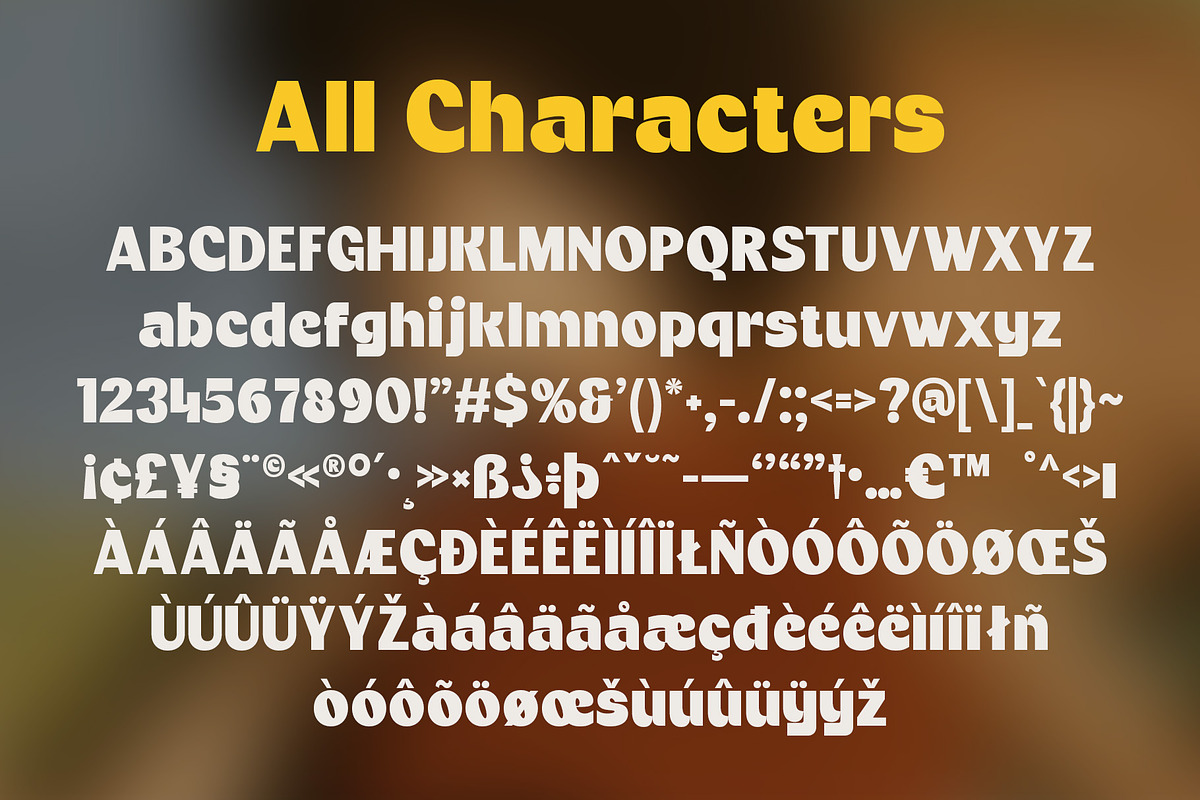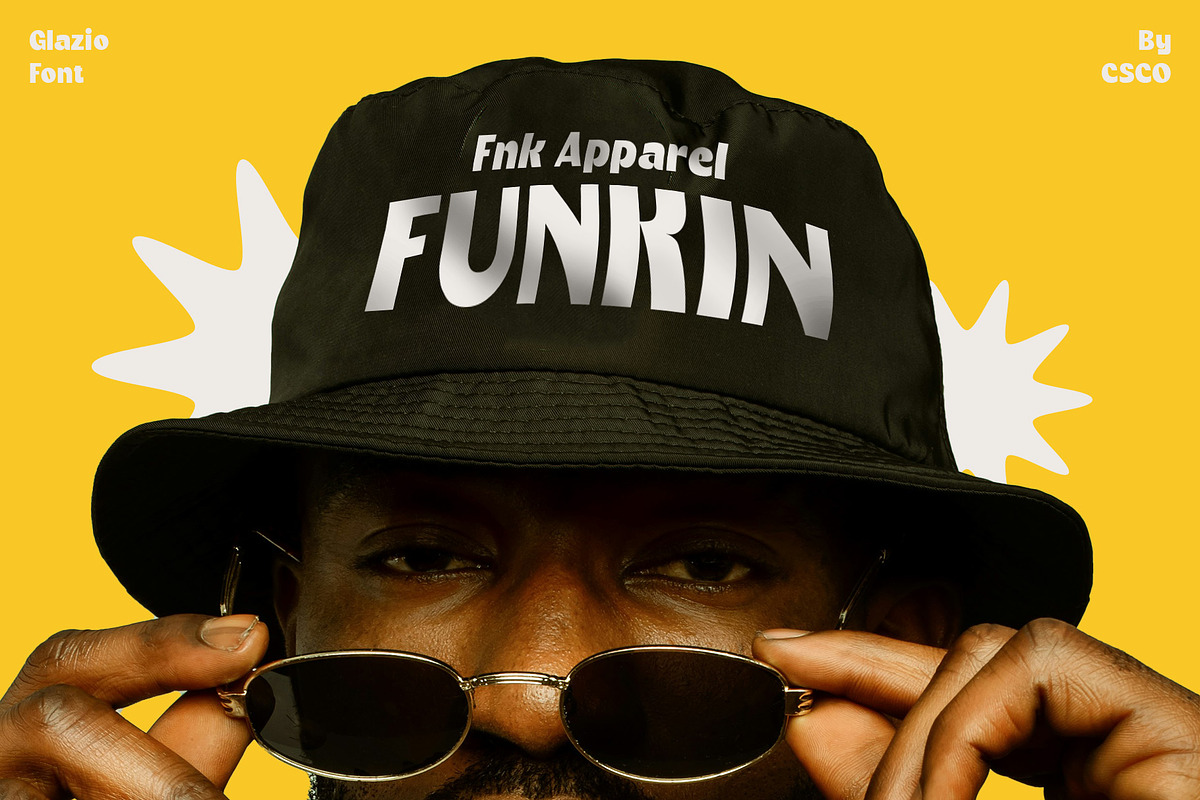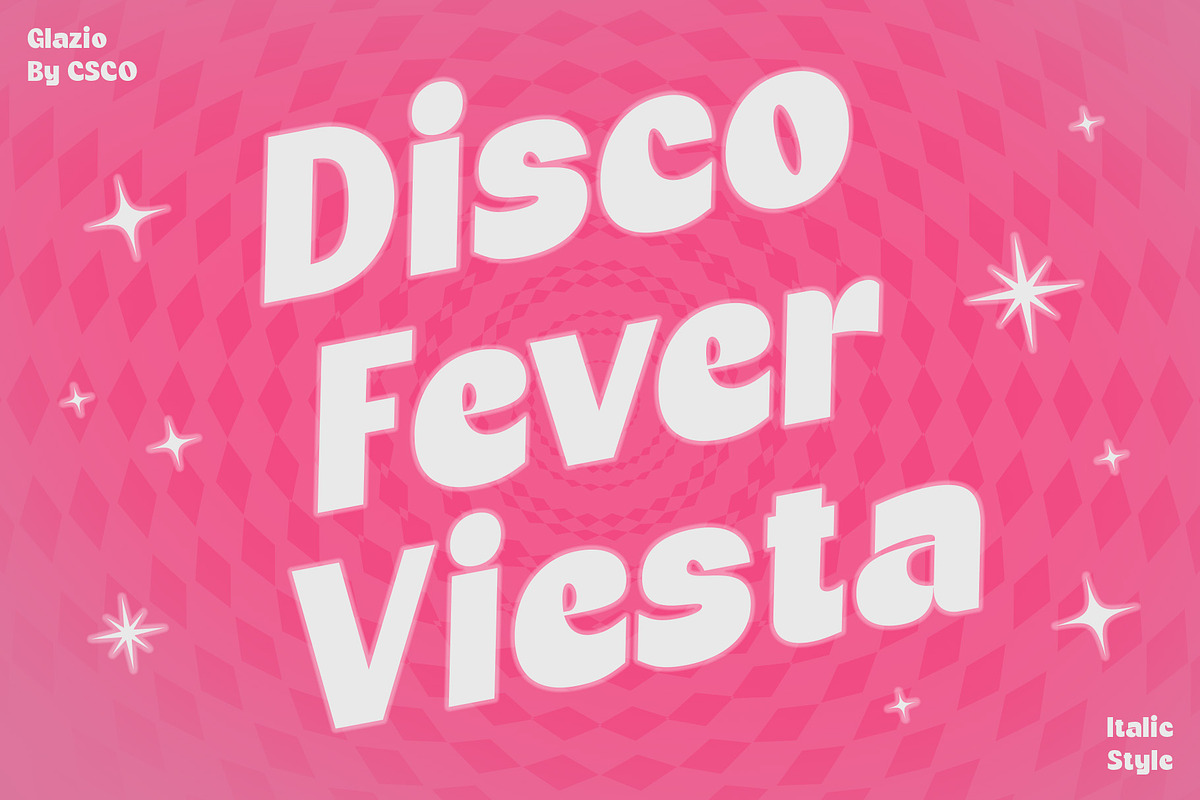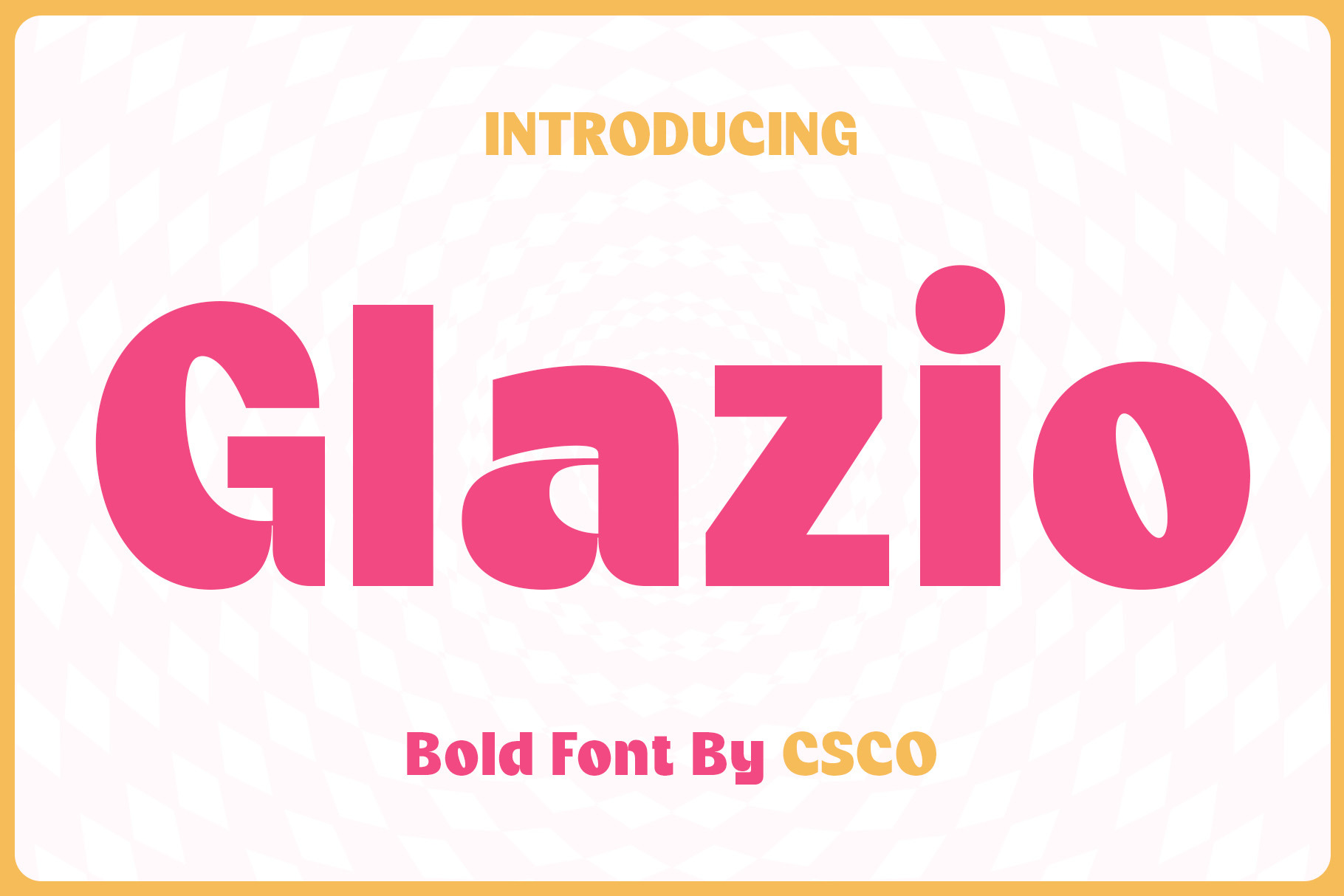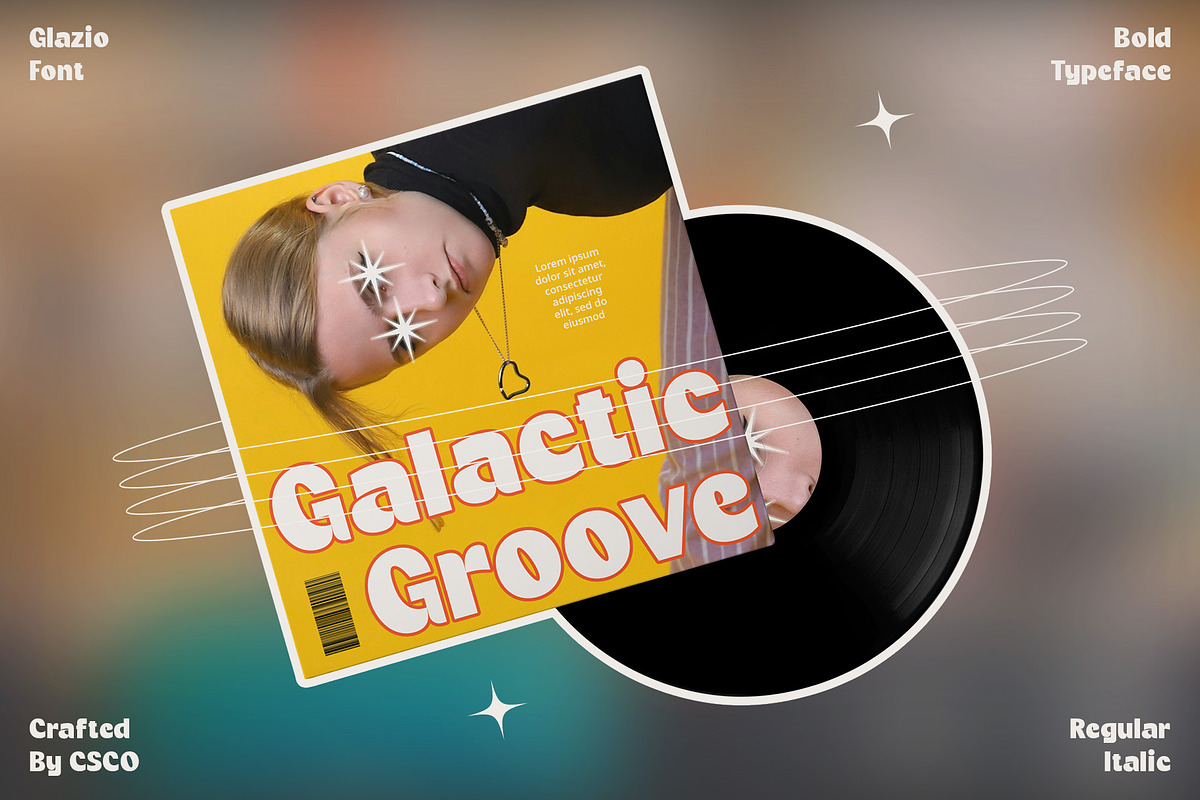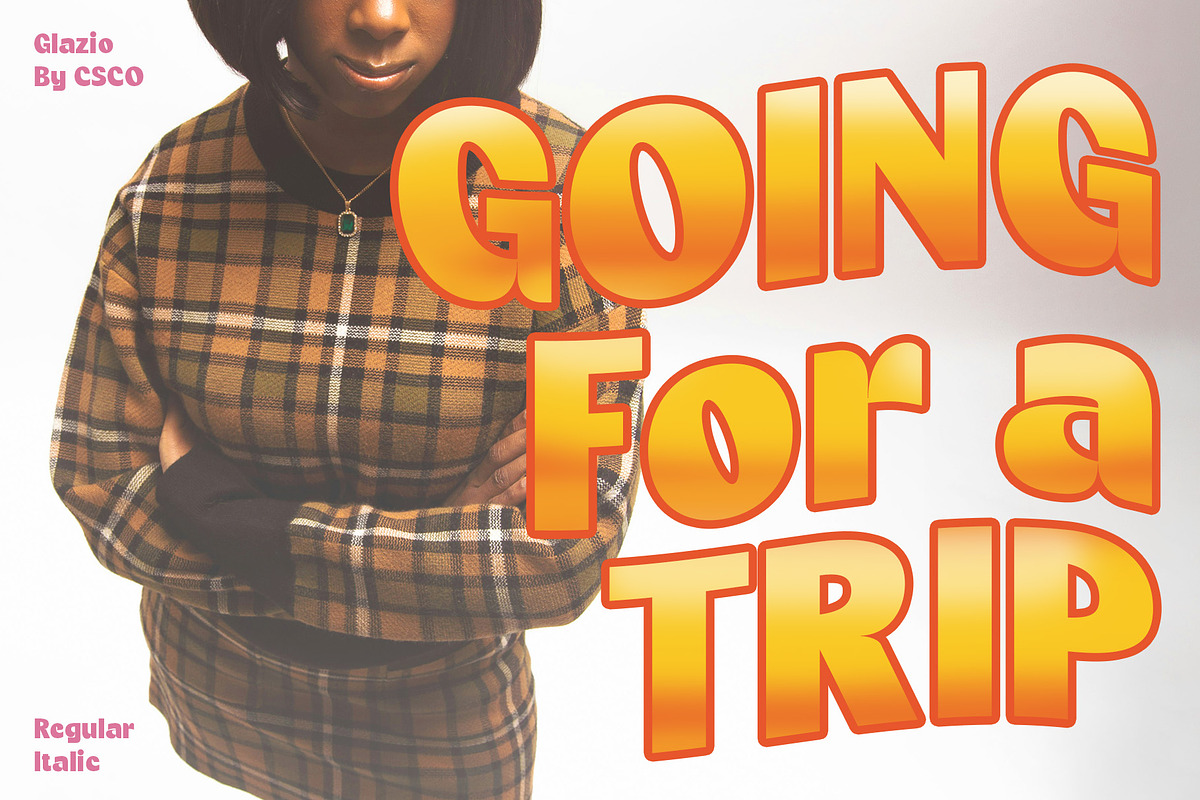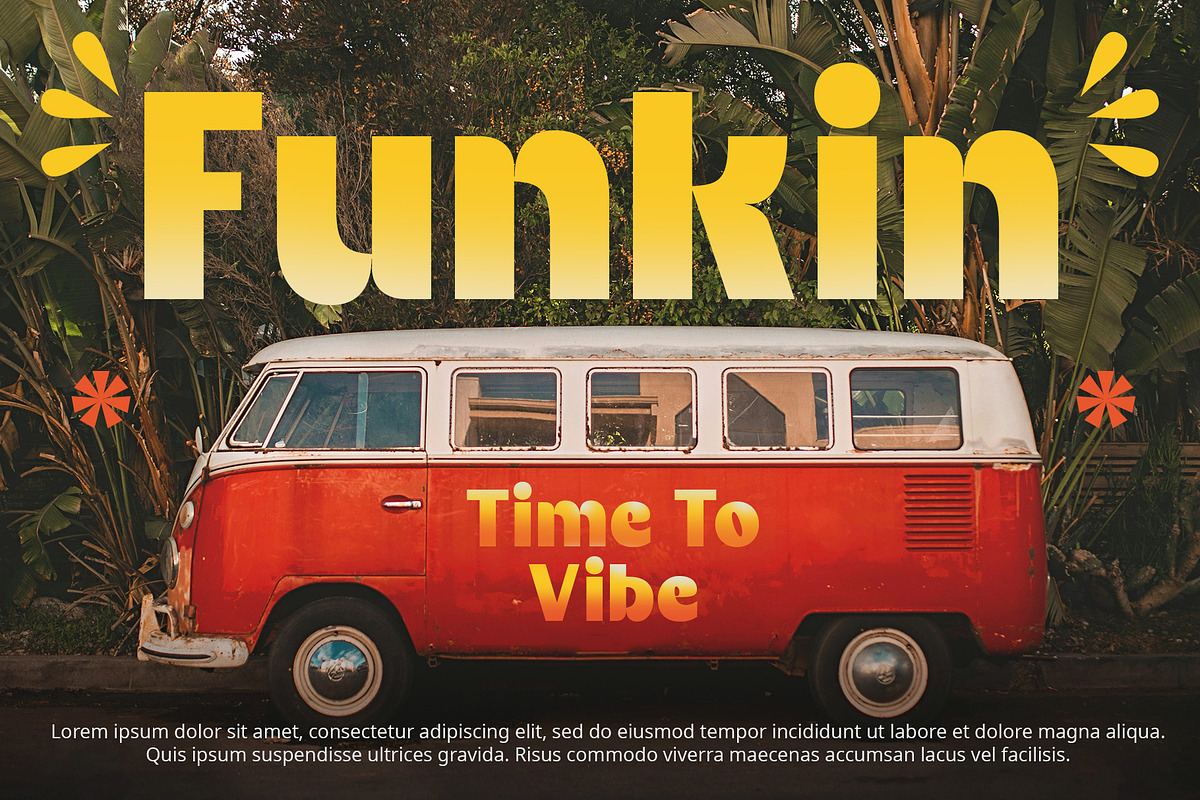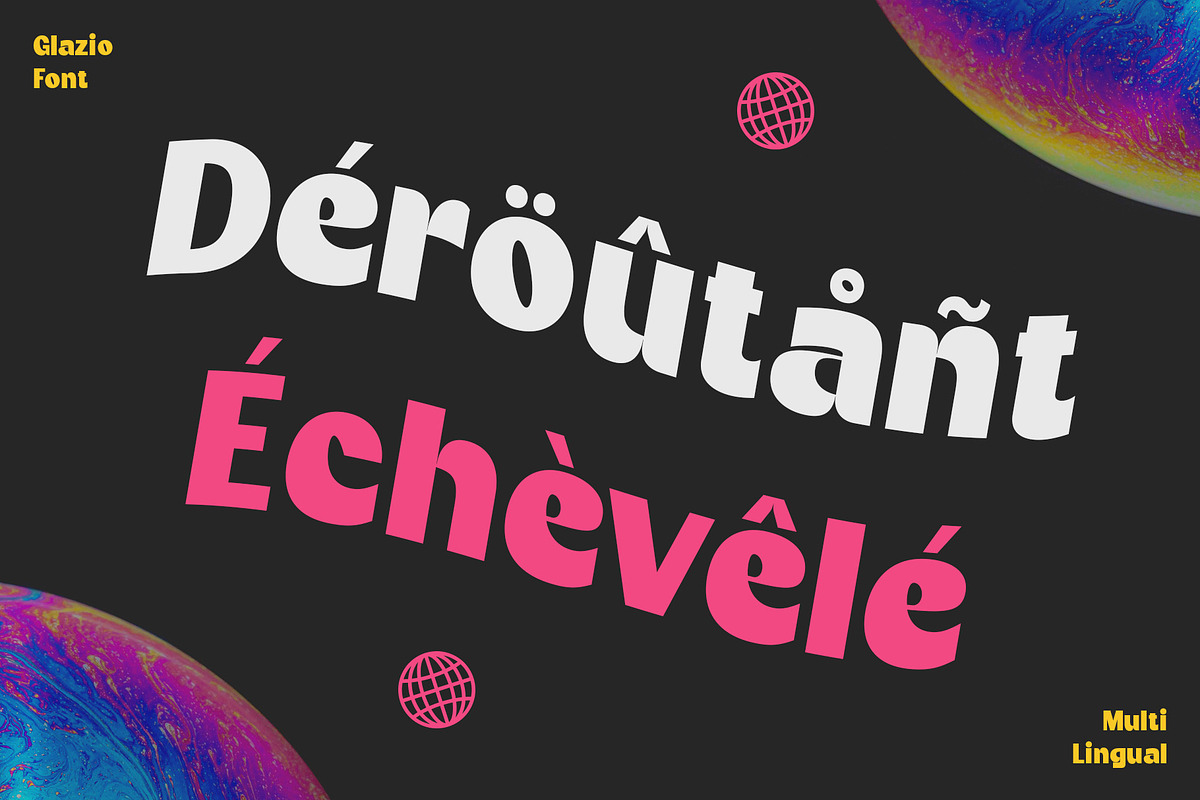
Glazio – Cute Bold Font
Glazio – Cute Bold Font: Where Professionalism Meets Playfulness
Bold and Playful Design Glazio – Cute Bold Font features a bold yet playful design, perfect for both professional and child-friendly projects. With This Cute Bold Font, professionalism seamlessly merges with playfulness, creating a font that appeals to all ages.
Cute and Funky Appeal Infuse your designs with a cute and funky display using This Cute Bold Font’s unique retro aesthetic. This Cute Bold Font brings a touch of retro charm to your designs, adding a cute and funky appeal.
Versatile Usage Suitable for both professional and child-friendly designs, This Cute Bold Font offers versatility and charm in equal measure. This Cute Bold Font adapts effortlessly to any design project, whether it’s for a corporate logo or a children’s book cover.
Perfect for All Ages Appealing to both adults and children, This Cute Bold Font strikes the perfect balance between professionalism and fun. Let This Cute Bold Font be your go-to choice for designs that demand a professional yet playful look.